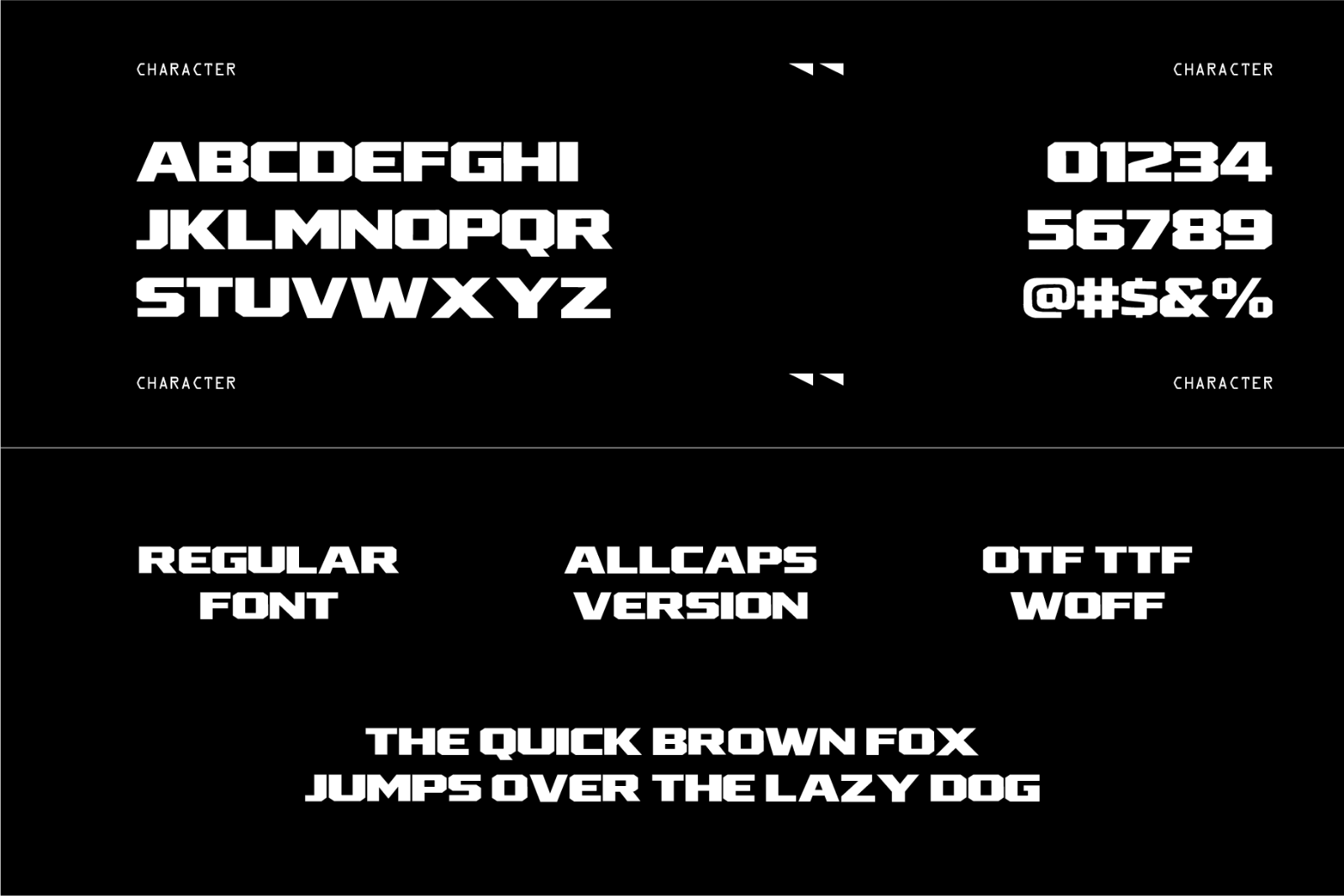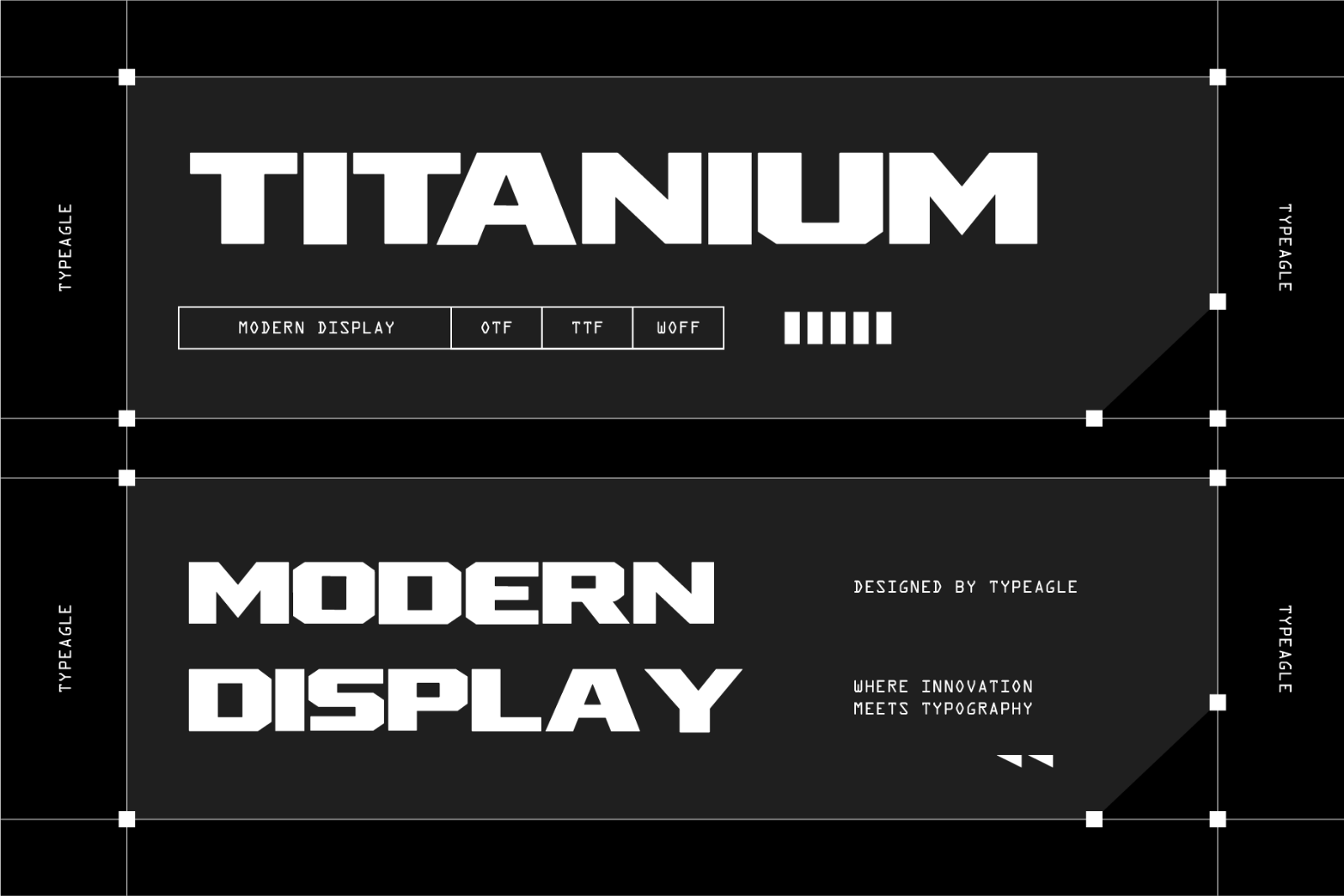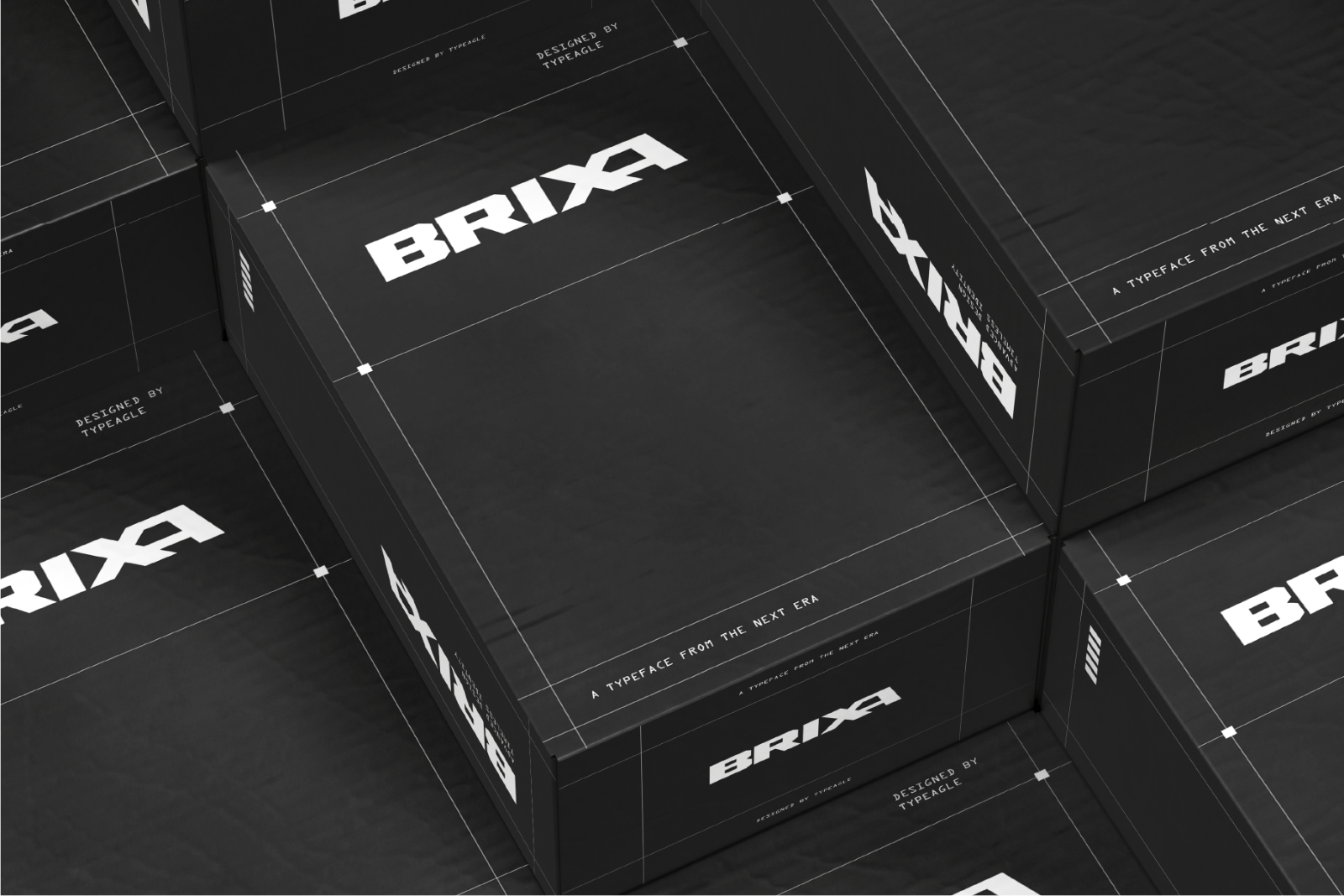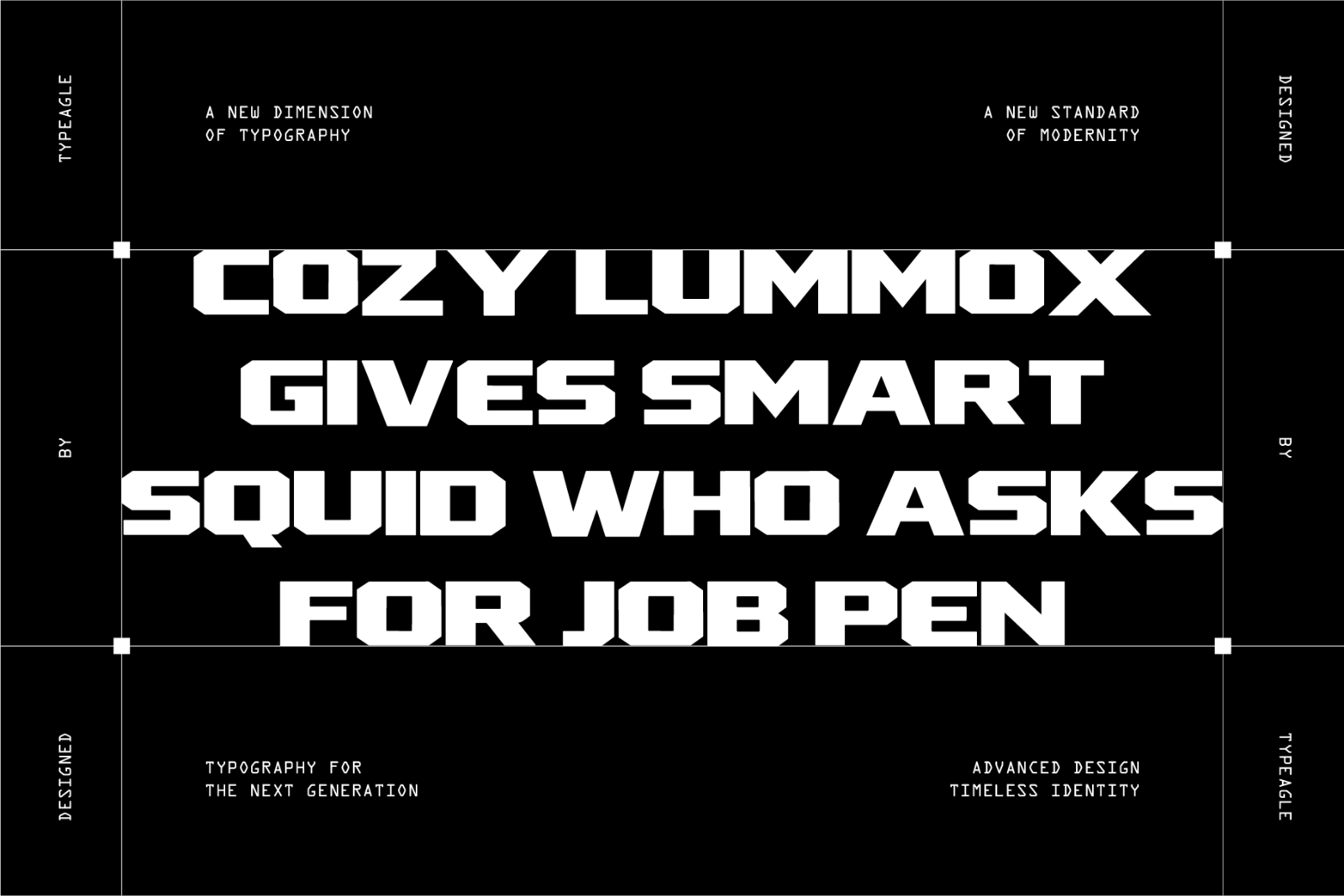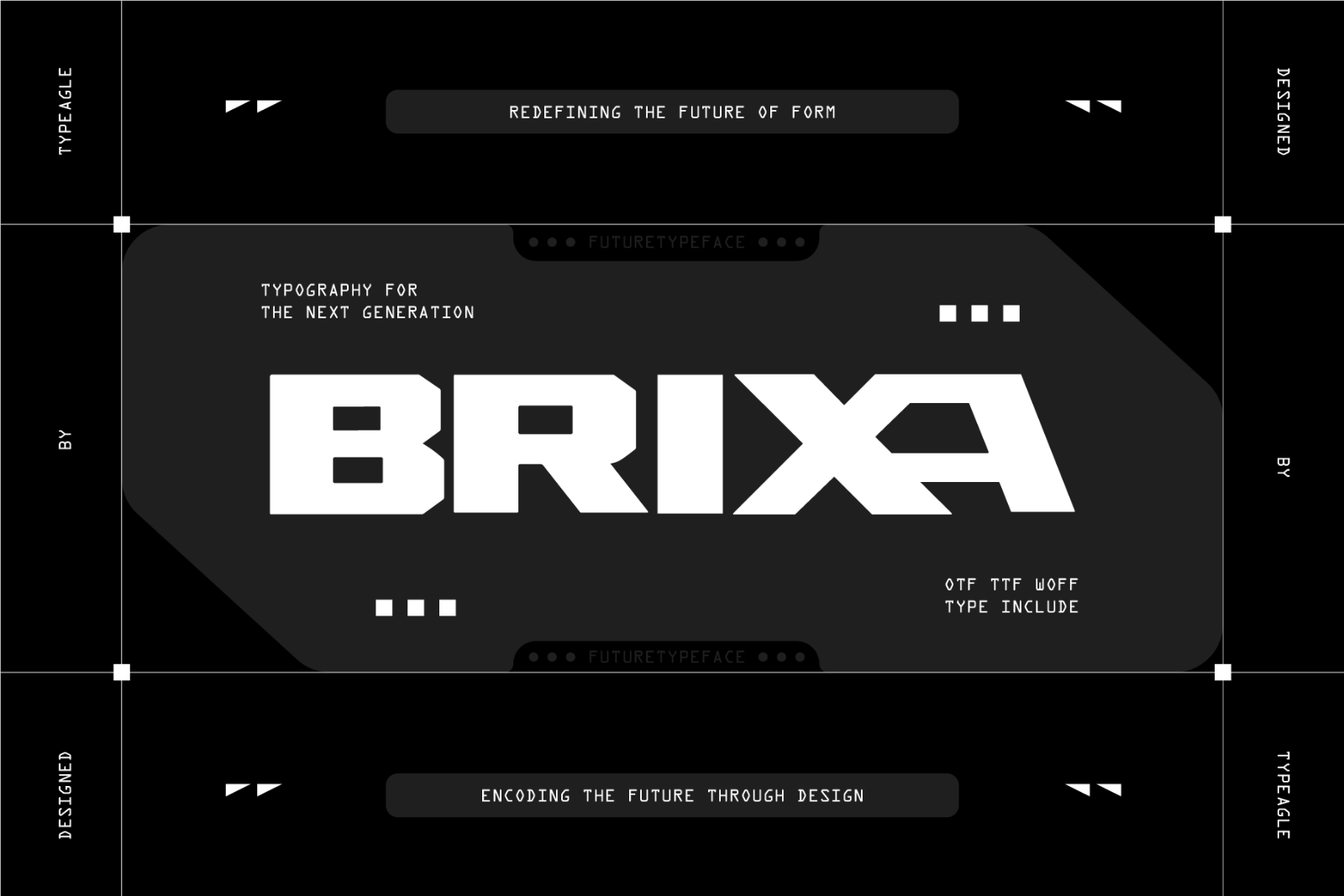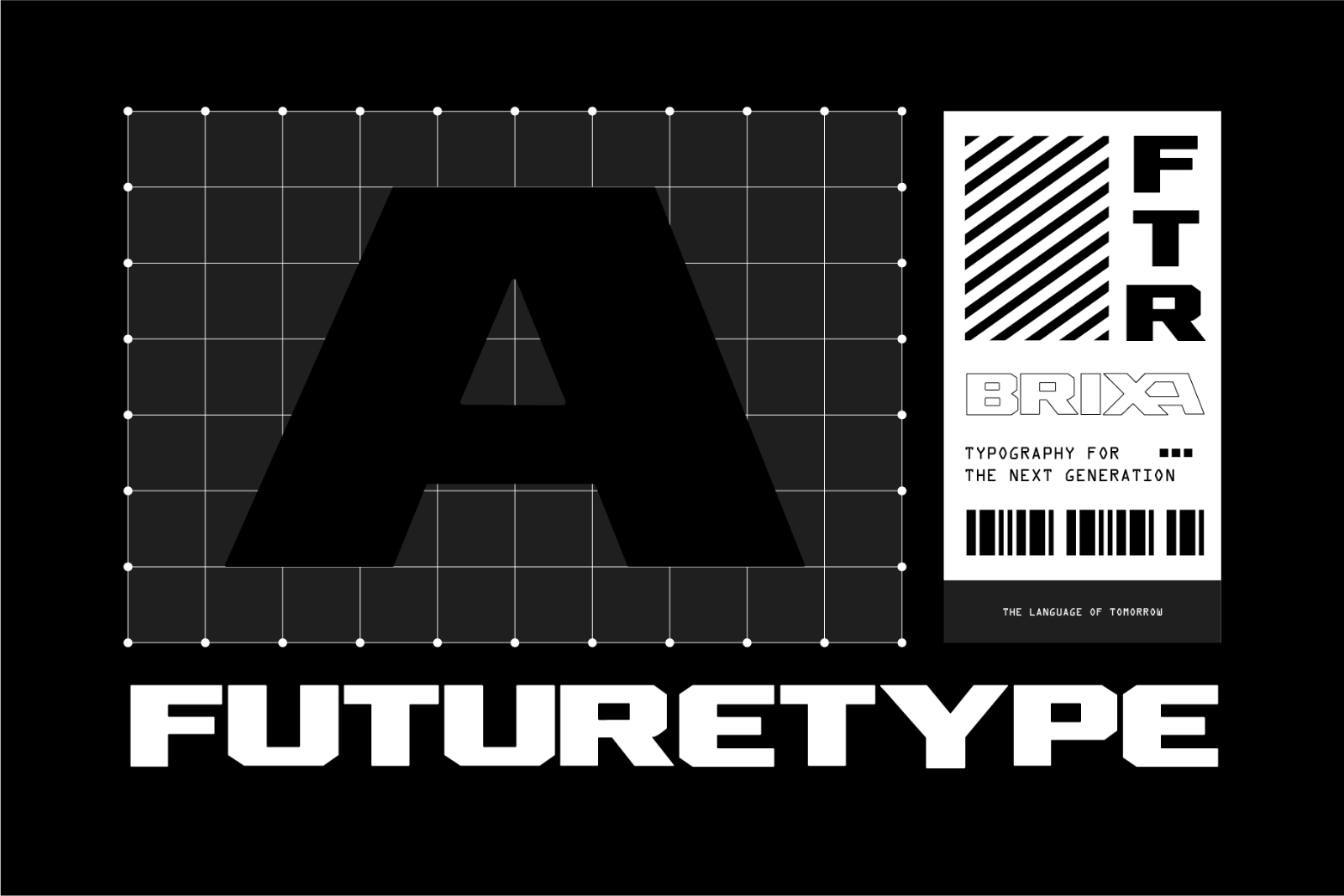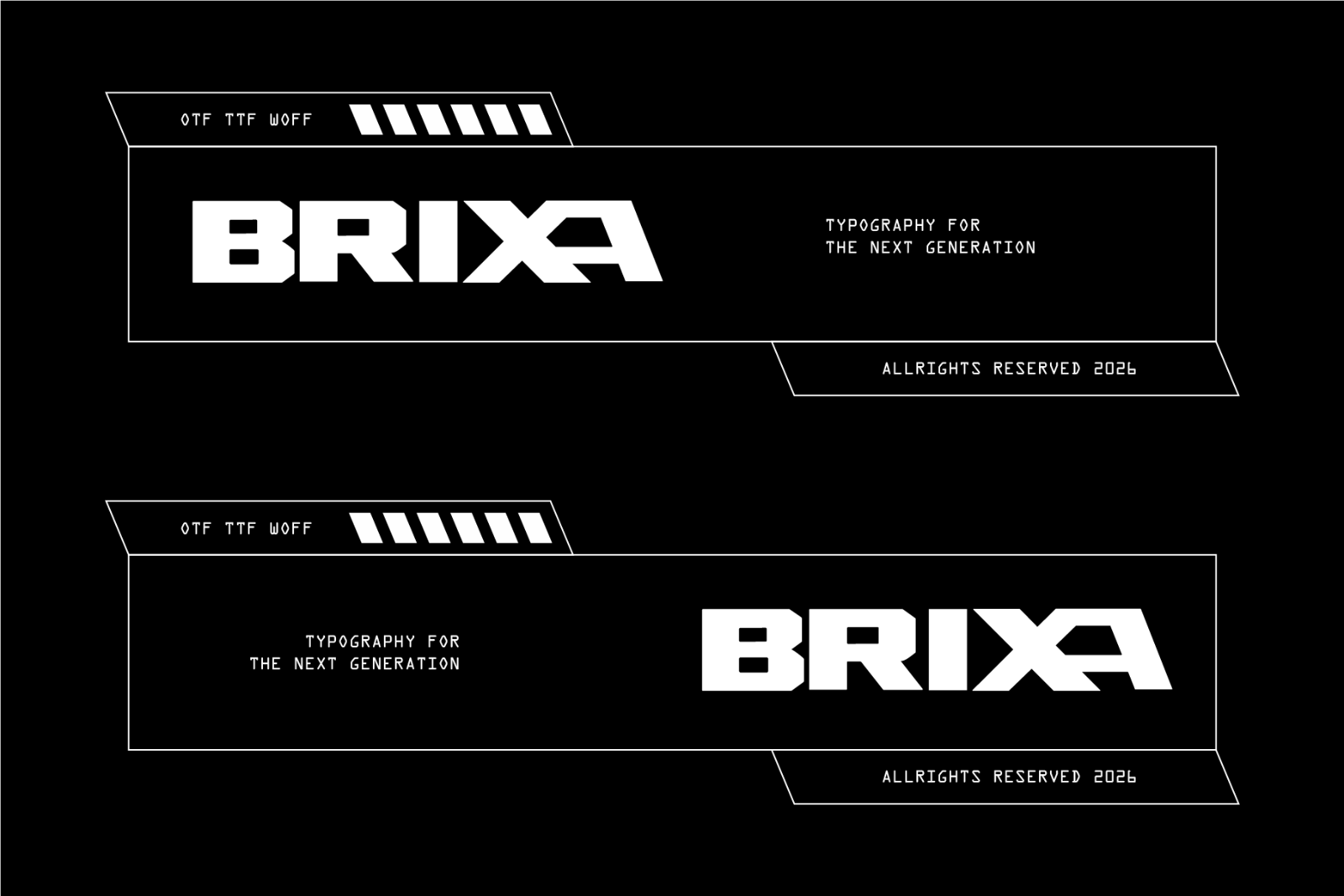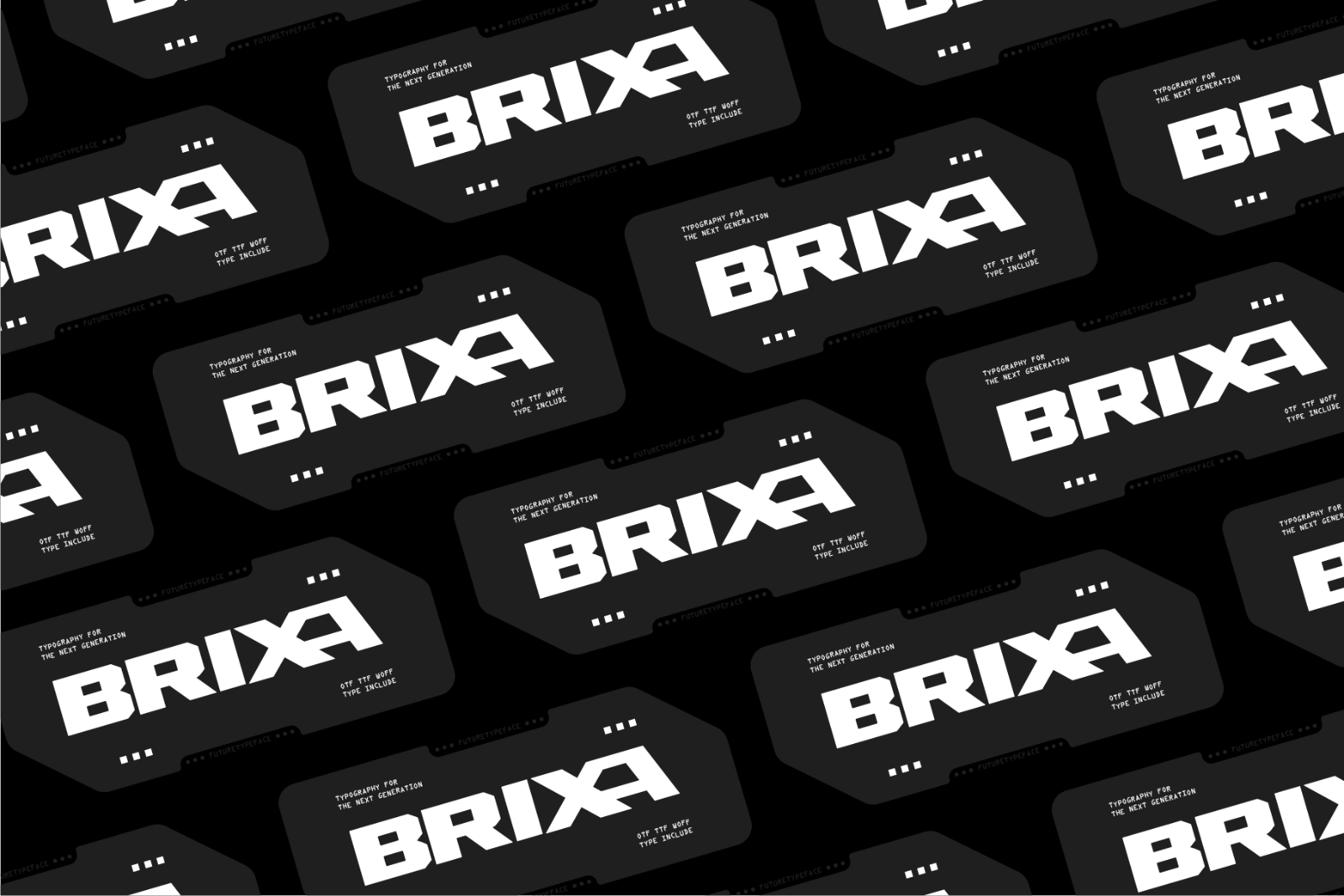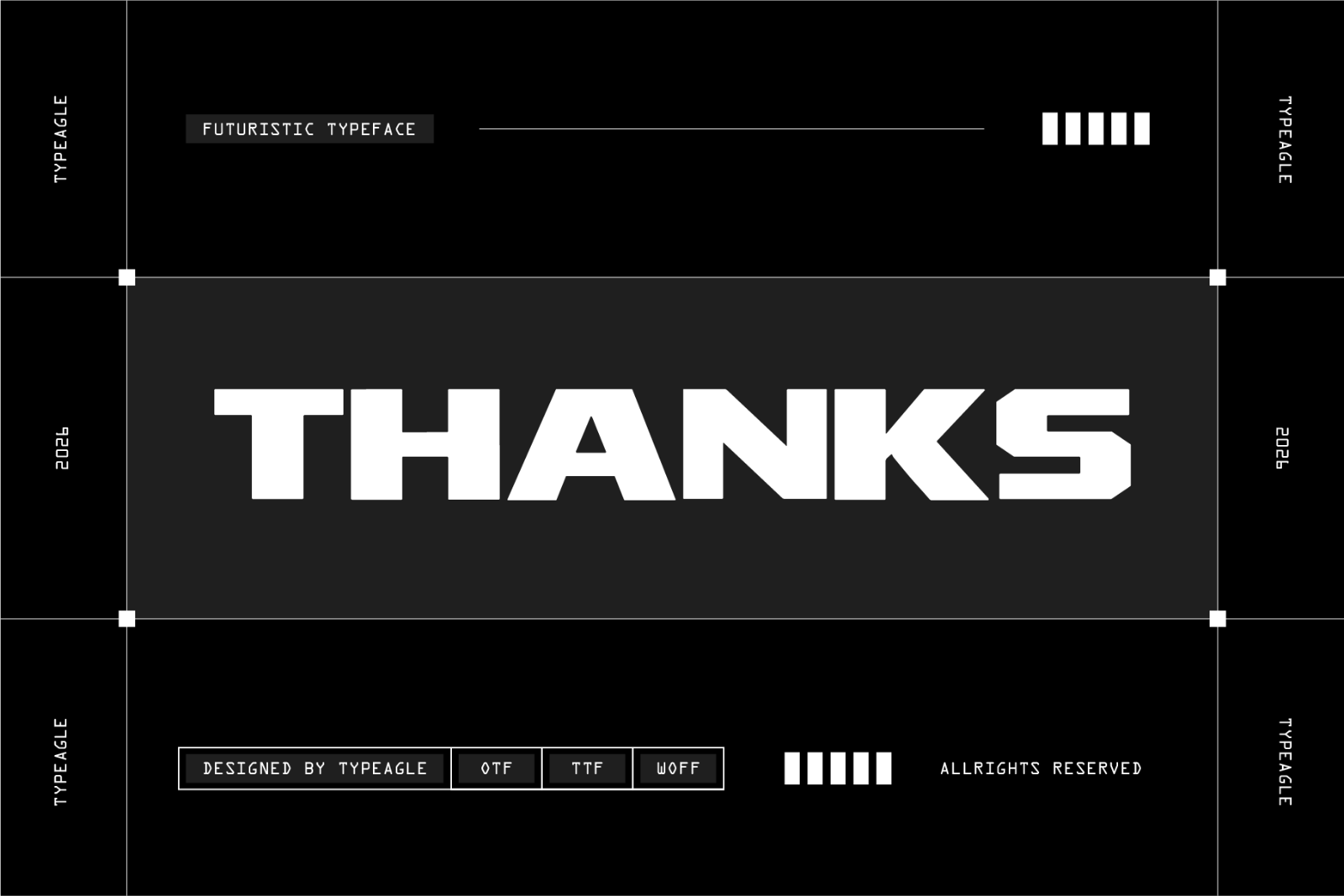
Brixa is a futuristic font designed to evoke a sense of innovation and technological advancement. Its sleek, sharp lines and geometric forms give it a bold and modern aesthetic, making it ideal for projects that require a cutting-edge, contemporary look.